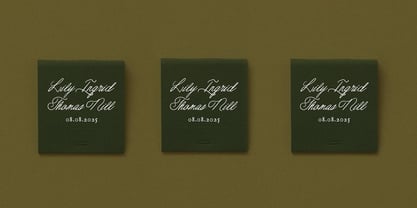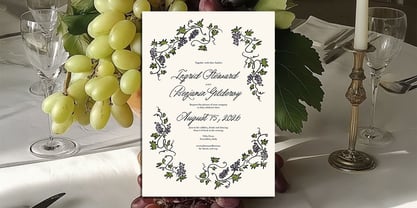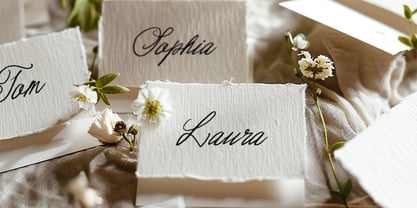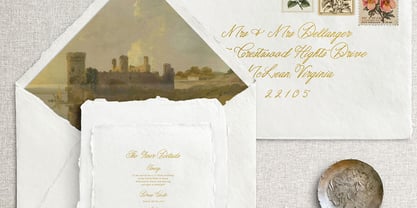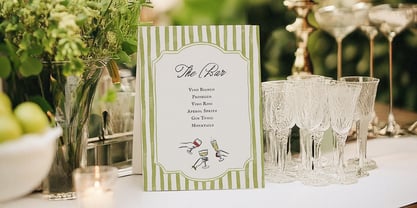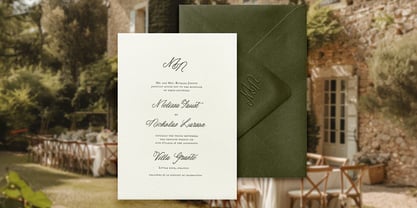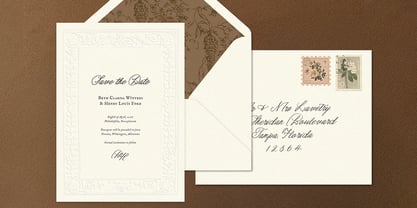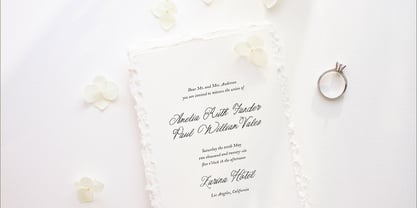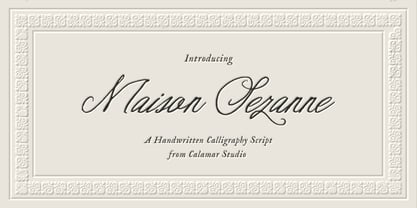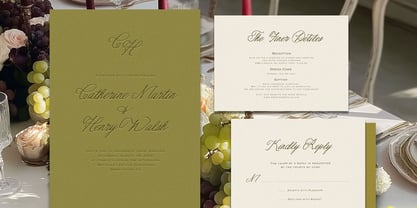
CS Maison Sezanne
This elegant handwritten script font is inspired by refined calligraphy and timeless European aesthetics. With its flowing strokes, delicate curves, and natural rhythm, it brings a sense of warmth, sophistication, and authenticity to any design.
Perfectly balancing grace and readability, this font works beautifully for both short phrases and expressive headlines. Its organic handwritten feel makes it ideal for projects that require a personal yet luxurious touch.
• Wedding stationery & menus
• Editorial design
• Branding & logos
• Restaurant menus
• Invitations & greeting cards
• Fashion, beauty & lifestyle projects
This script font pairs effortlessly with clean serif or minimalist sans-serif fonts, making it a versatile choice for modern, elegant layouts. Add a touch of timeless charm and handwritten elegance to your designs.